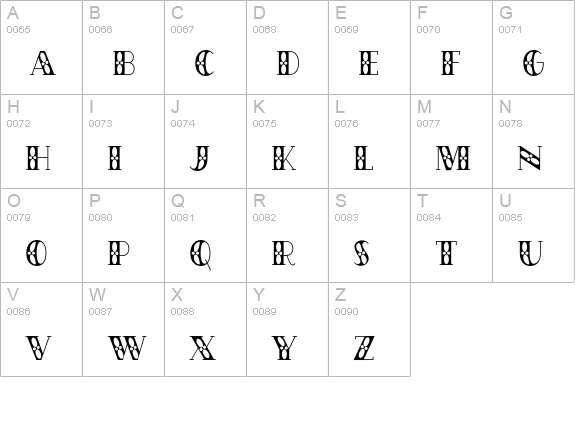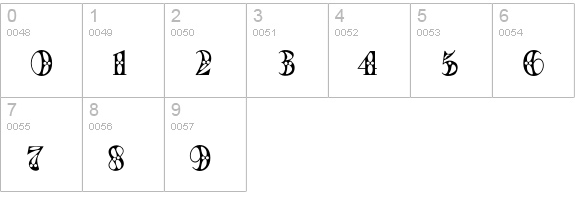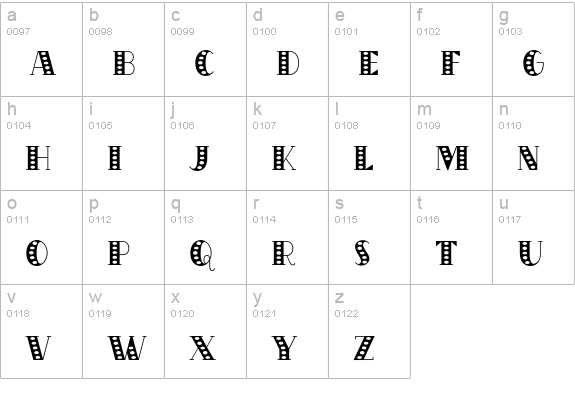
Moviestar Font Details
Moviestar font is a stunning display typeface that exudes glamour and elegance. With its bold lines and stylish curves, this font is perfect for adding a touch of sophistication to any design project. Whether you're creating a movie poster, a magazine layout, or a logo for a high-end brand, Moviestar font will make your text stand out and shine. The best part? Moviestar font is completely free to download at FontsMarket.com! This means you can add a touch of Hollywood glam to your projects without breaking the bank. Don't miss out on this fabulous font – download Moviestar today and take your designs to the next level.